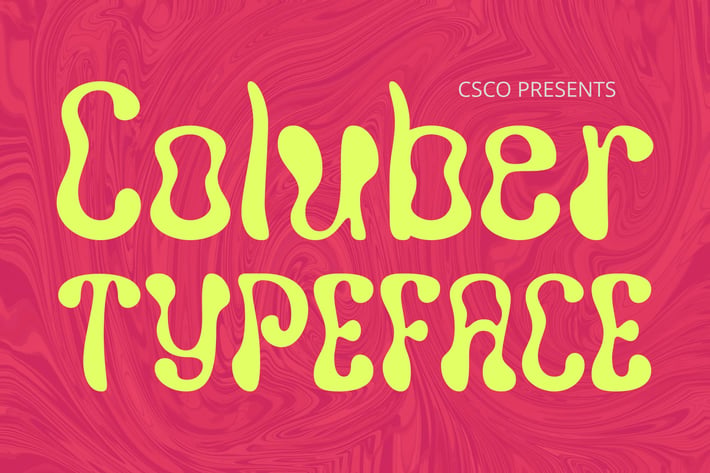
Coluber – Trippy Font
Coluber – Trippy Font: Unleash Your Creativity
Display Font with a Trippy Style
Introducing Coluber, our display font with a trippy or psychedelic style and a funky feel. Perfect for designs that aim to showcase creativity, uniqueness, and joy, Coluber is ideal for music poster designs, experimental graphics, and more.
Versatile and Expressive
With its versatile design, Coluber Font is suitable for a variety of uses, including branding, packaging, and editorial design. Its trippy style adds a bold and expressive element to any project, ensuring that your designs make a statement.
Perfect for Showcasing Creativity
Coluber Font is the perfect choice for designs that require a creative and unique look. Whether you’re designing a poster for a music festival or creating graphics for an experimental art project, Coluber adds a touch of excitement and originality to your designs.
Enhanced Visual Impact
Coluber Font prioritizes visual impact, ensuring that your designs are both memorable and engaging. Whether used in print or digital media, this font adds a playful and energetic element that captivates viewers.
Unleash your creativity with Coluber Font and bring your designs to life in a bold and exciting way.